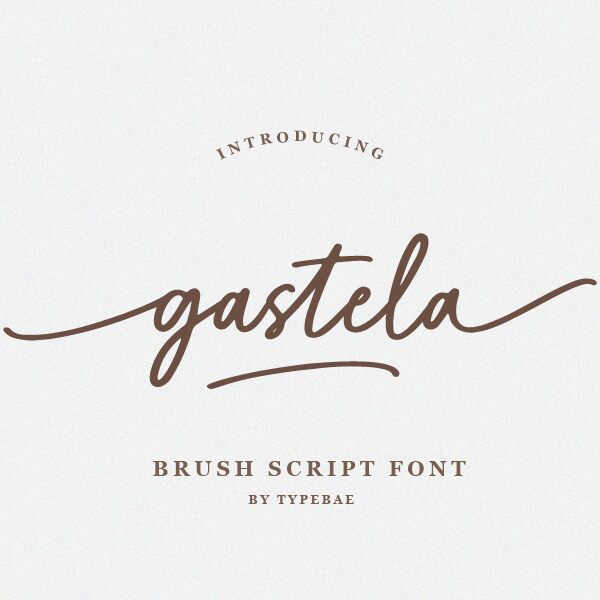
Gastela
Gastela font is an expressive, modern handwritten typeface designed by Typebae Foundry. It embodies casual elegance with a signature style that exudes flowing continuity. Perfect for those seeking artistic flair in their design projects, Gastela’s smooth transitions and authentic feel make it a standout choice for creative endeavors.